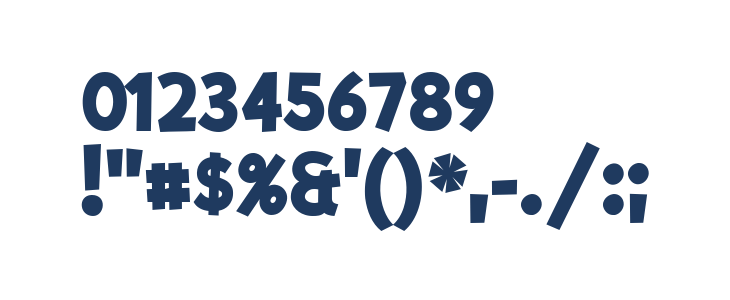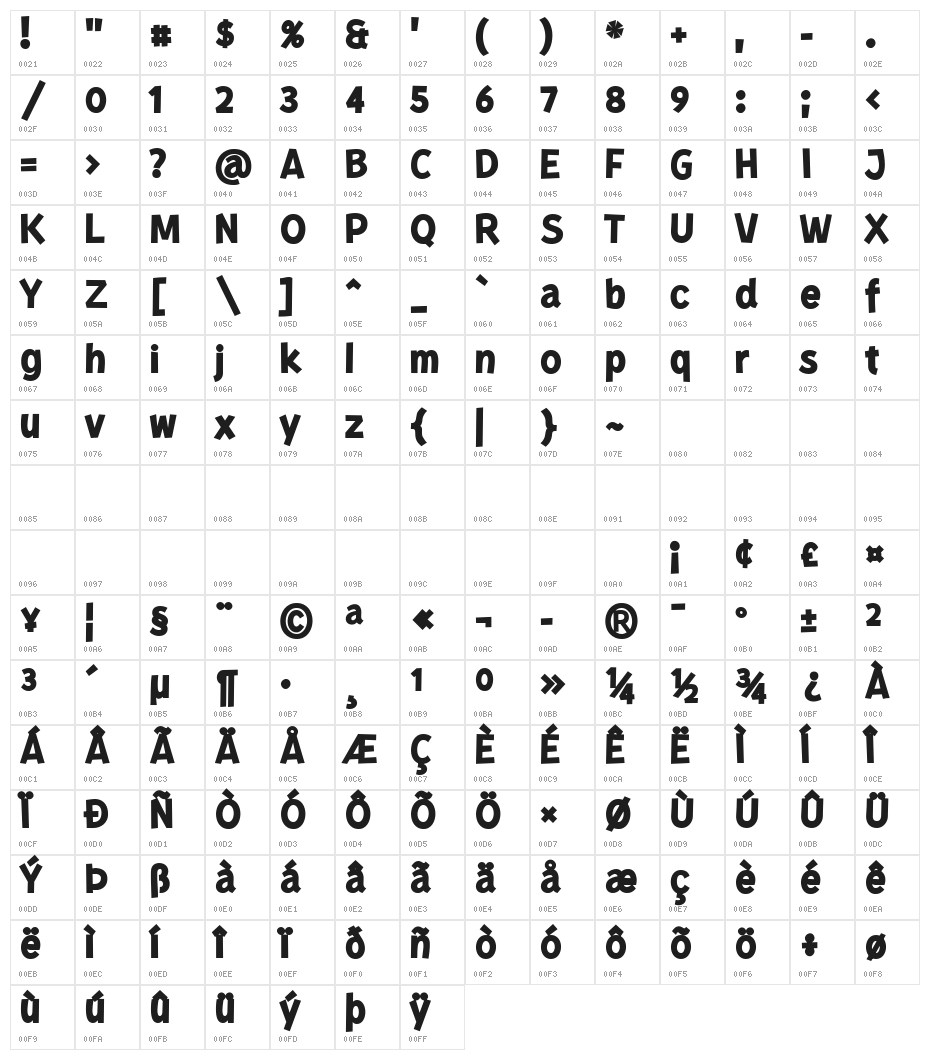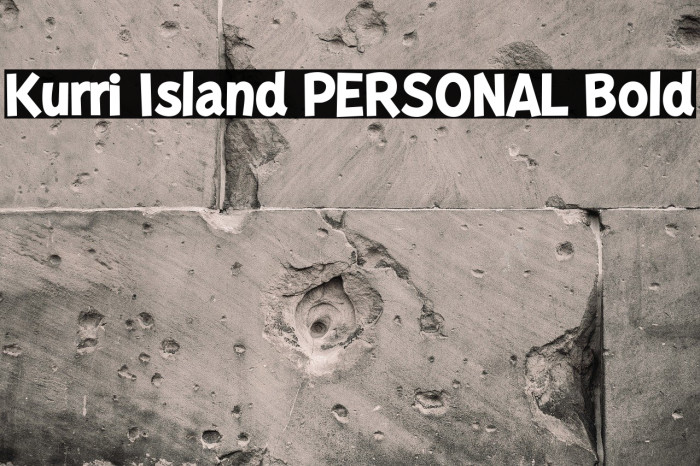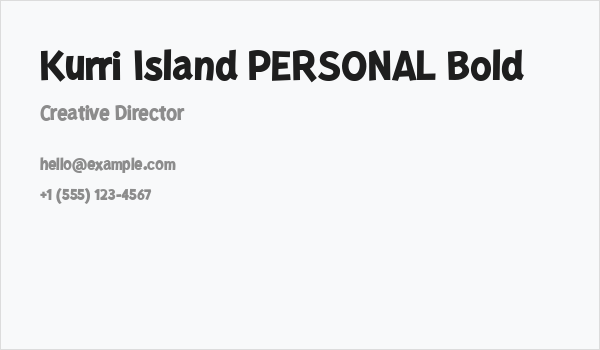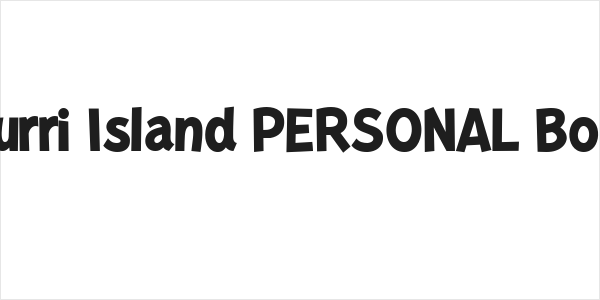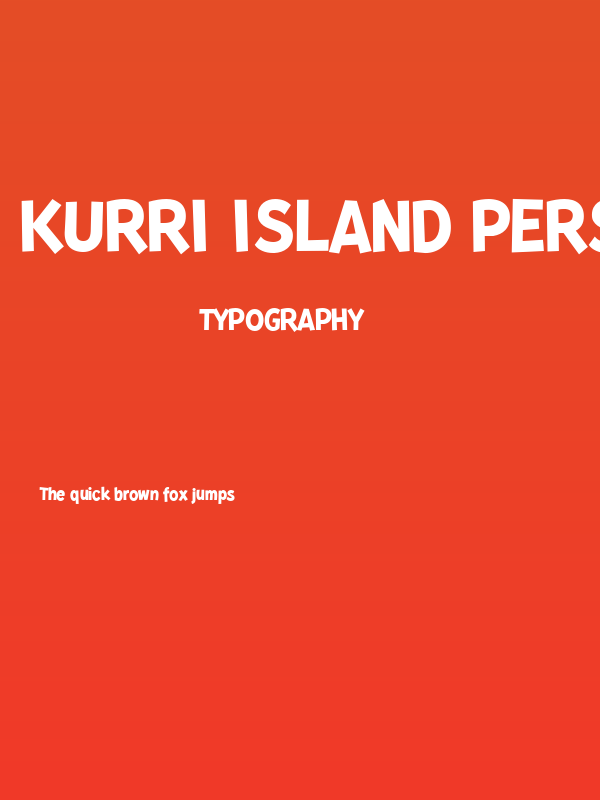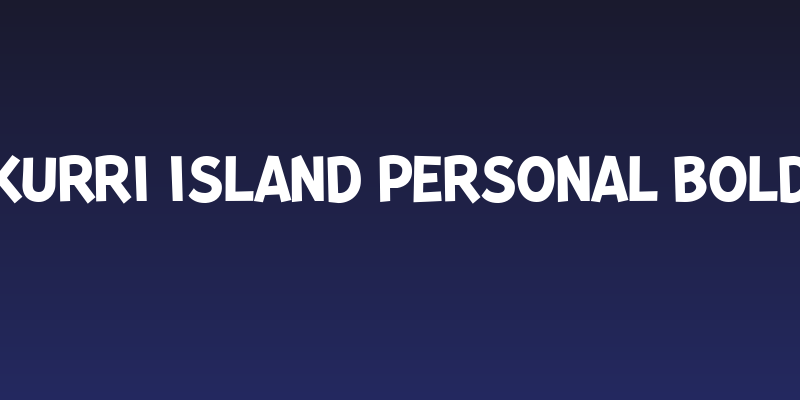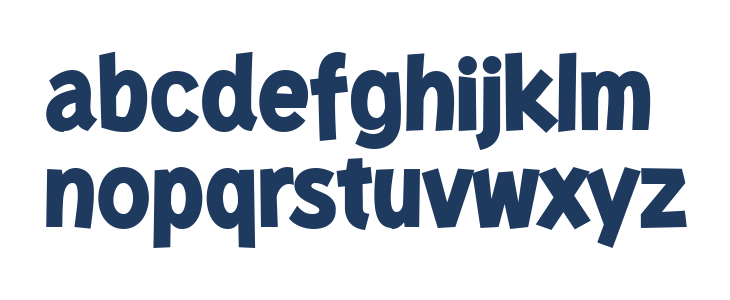
Kurri Island PERSONAL Bold Font
Kurri Island PERSONAL Bold Description
This font features bold, playful characters with a slightly irregular and whimsical design. The letters have a strong presence, with thick strokes and a slightly condensed appearance. The uppercase and lowercase letters maintain a consistent style, with rounded edges and a friendly, approachable look. The numbers and special characters follow the same bold and quirky aesthetic, making the font suitable for eye-catching designs. Its unique style is perfect for projects that require a fun and informal touch.
| Proposed Projects | Ideal for children's books, playful branding, posters, and creative advertising. |